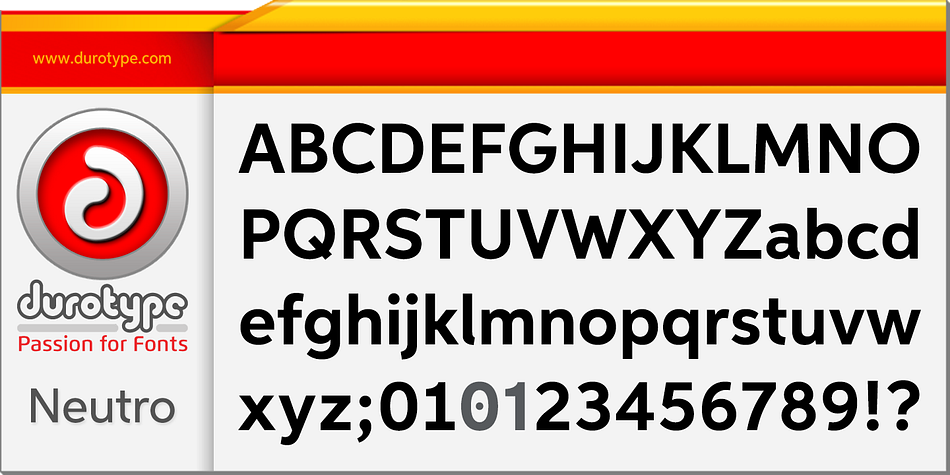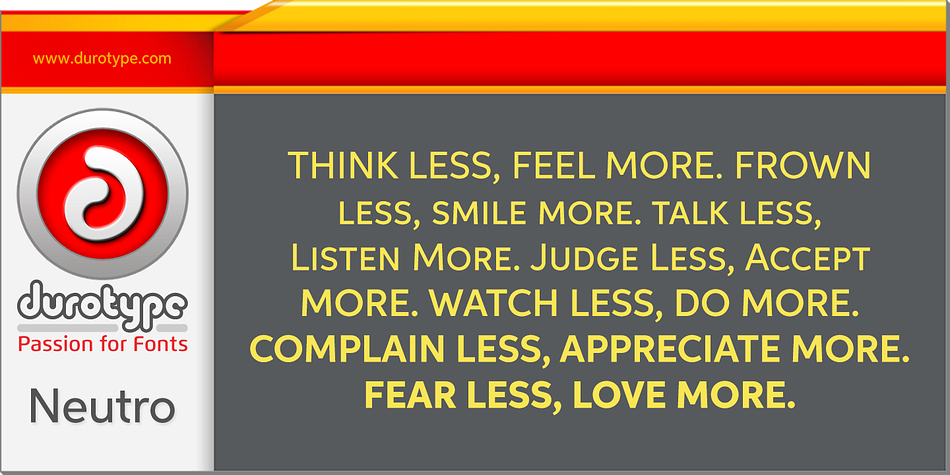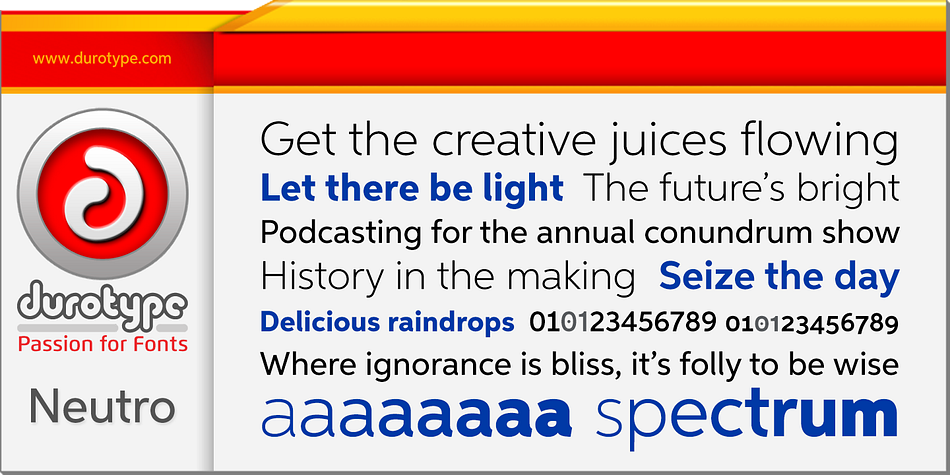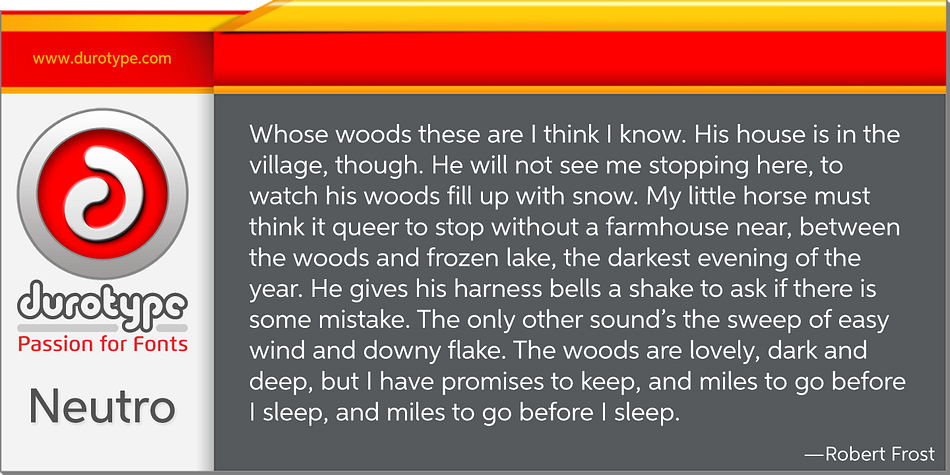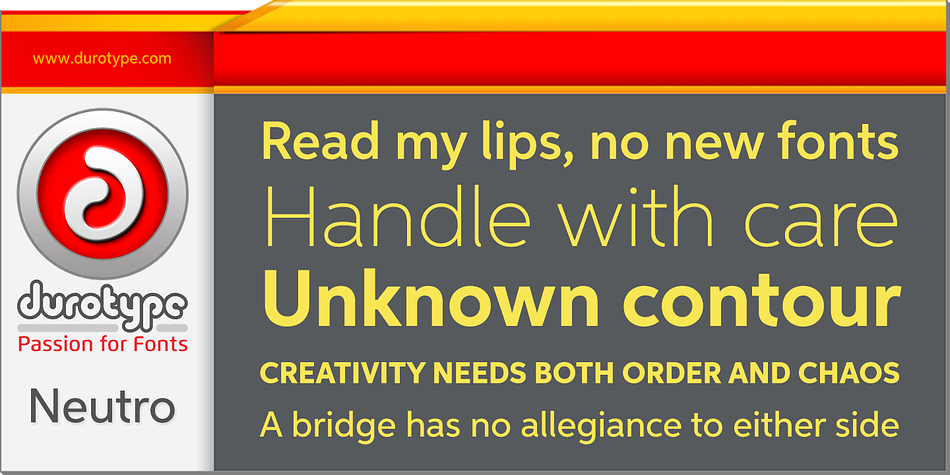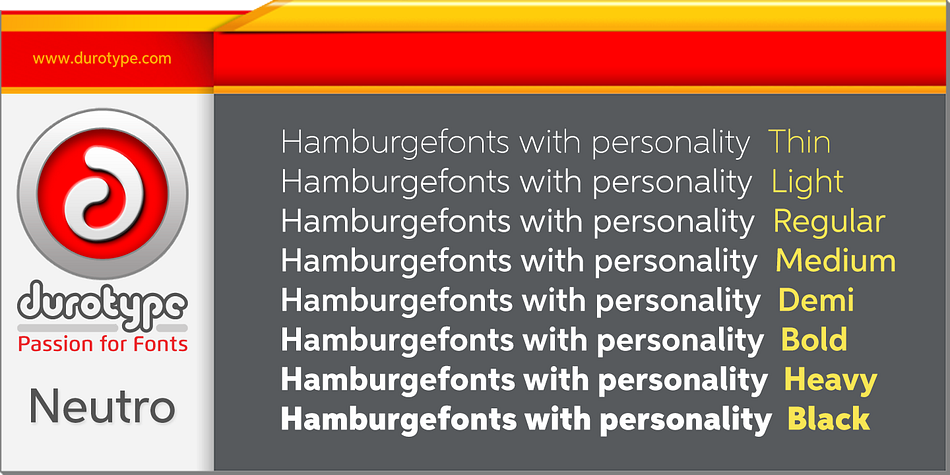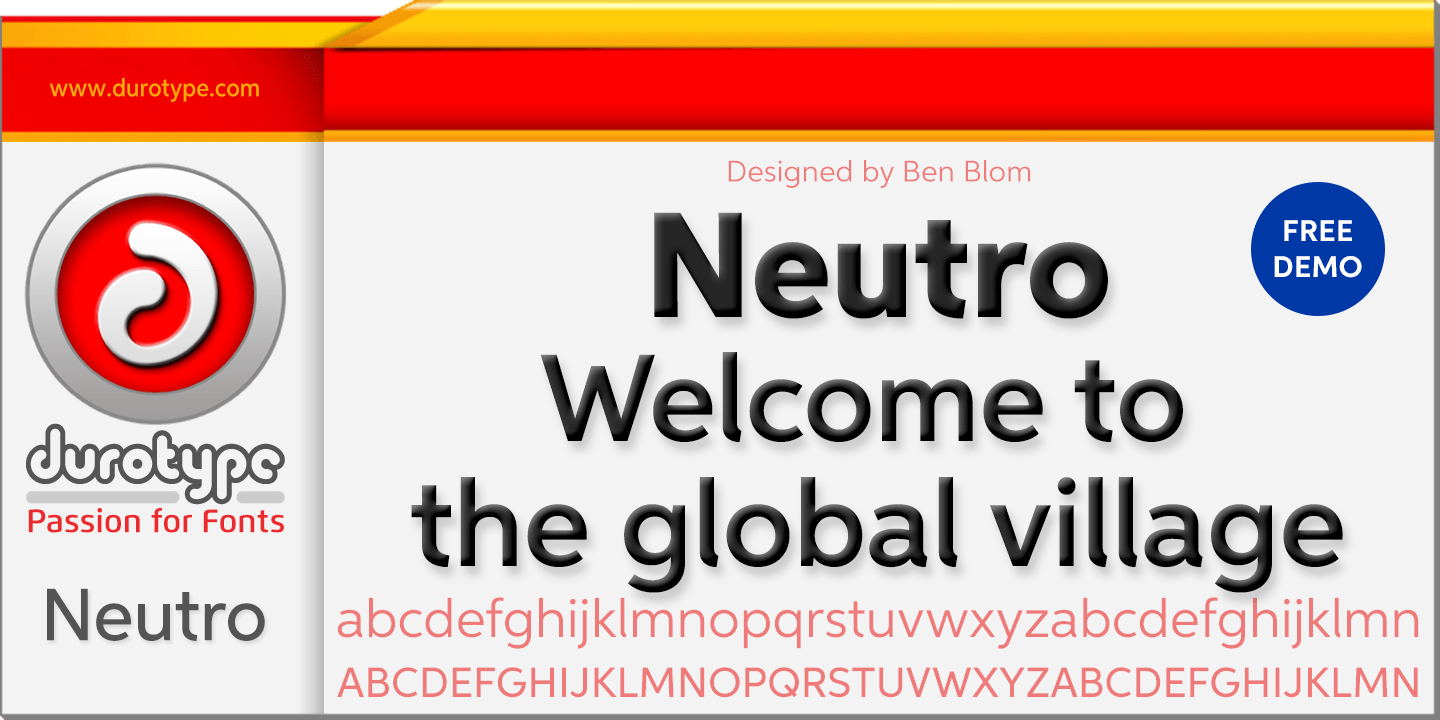
Designed by Ben Blom, Neutro is a sans serif font family. This typeface has seventeen styles and was published by Durotype.
Neutro is a neutral, multi-purpose font family. It is Aspira made more neutral, by removing angled terminals. Neutro’s subtle, fresh geometric personality, makes it ideal for any use where the content is more important than the font used to display this content. As neutral as it may be, its presence is always pleasant in an inconspicuous way.
Neutro is well suited for both text and display use — for graphic design, corporate identity design, magazines, newspapers, books, reports, editorials, web, advertising, signage, etc.
Neutro includes eight uprights and matching italics. Neutro includes nine numerical styles: lining and oldstyle figures (proportional and tabular), small cap figures, superiors, inferiors, numerators, and denominators. Neutro includes small caps, arbitrary fractions, and extensive language support.